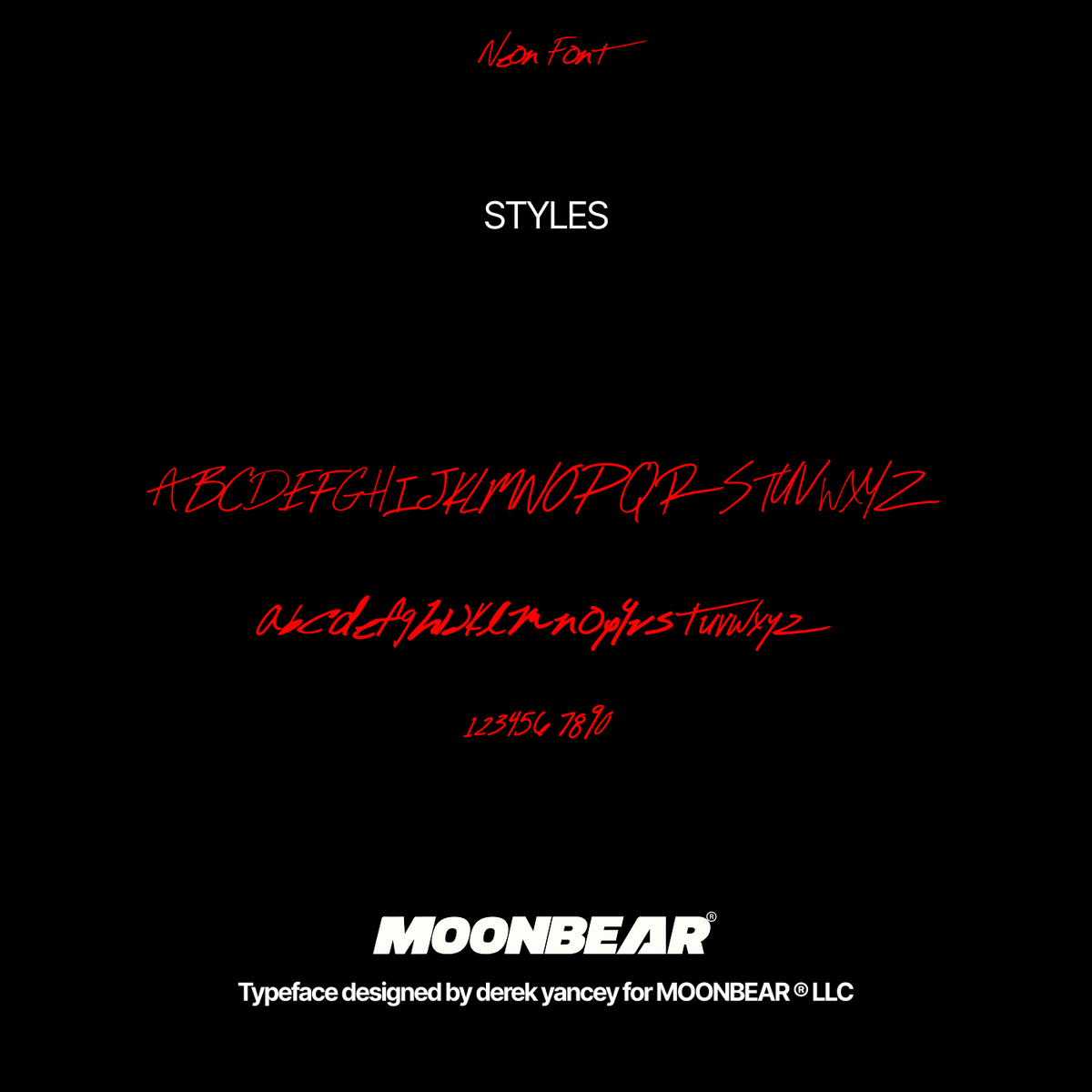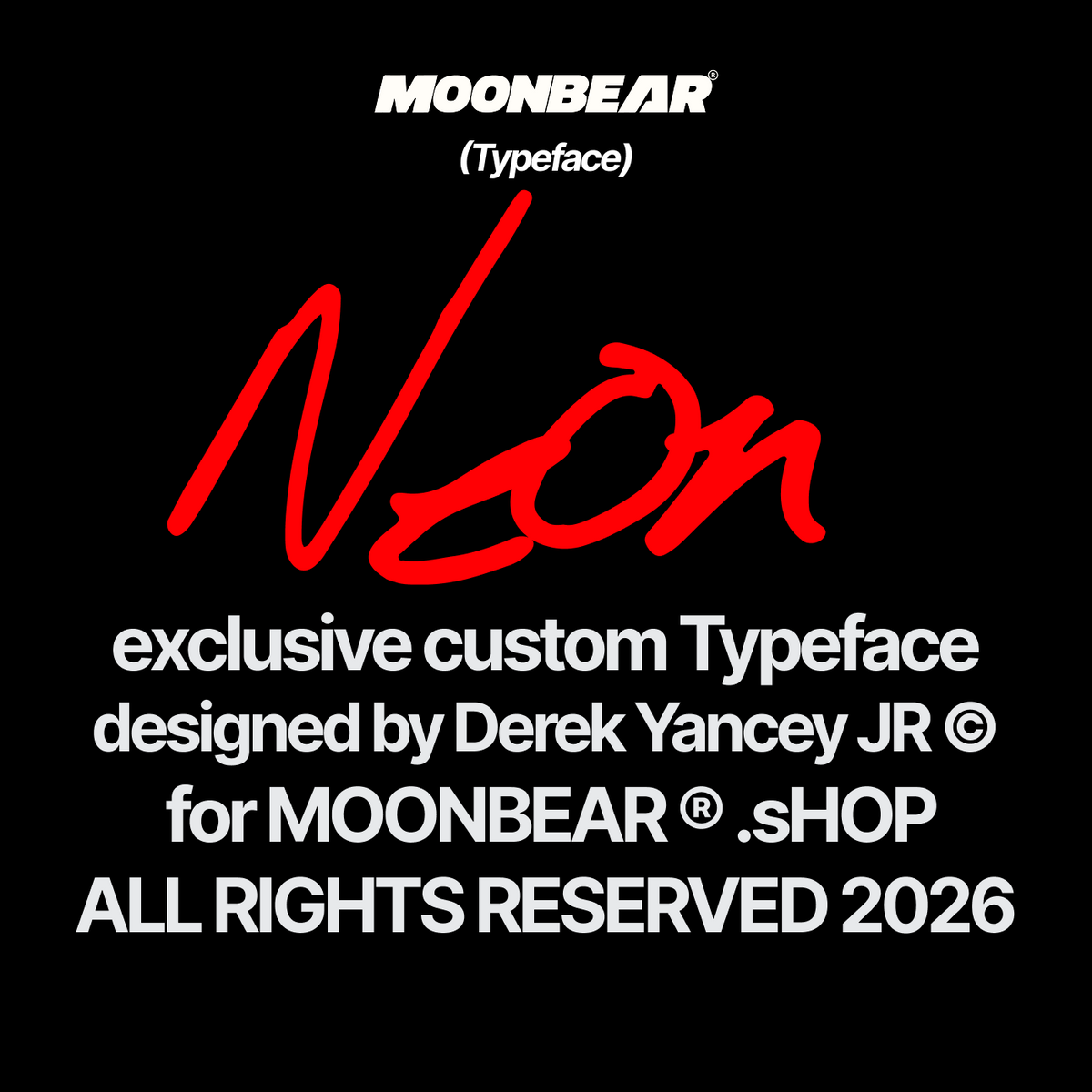
Neon Hand Drawn Font
Add vibrant energy to your visuals with our Cyber punk inspired Hand Drawn Font, custom-designed by Derek Yancey jr. - thisΒ writing font that brings the look of real illuminated signage to your screen. Perfect for digital creators, branding specialists, and poster designers, this font mimics the smooth flow and glow of genuine neon tubing with a hand-crafted twist.
π‘ Whether you're designing logos, YouTube thumbnails, event flyers, or gaming overlays, this font gives your text a bold, electrifying presence.
Authentic Handwritten Design
Each character is hand-drawn to resemble real neon tubing, capturing the organic curves and imperfections of classic neon signs. -
Perfect Glow-Ready Font for Neon Sign Projects
Built to pair perfectly with glow effects in Adobe Photoshop, Illustrator, Premiere Pro, and After Effects. -
Ideal for Digital Creators & Designers
From music artwork to late-night bar signage, this neon sign font delivers attention-grabbing results every time. -